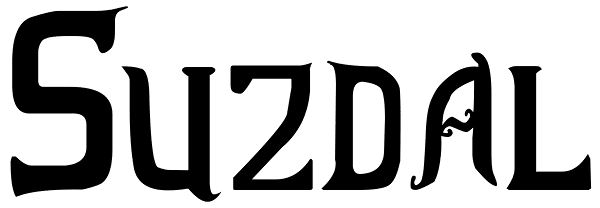
Suzdal
Suzdal is a font based on a hand-lettered souvenir that I brought back from the Vladimir/Suzdal region in 2001. Suzdal includes a character set for Modern Greek, and most of the characters used in modern Cyrillic alphabets. The Vladimir/Suzdal...
Suzdal